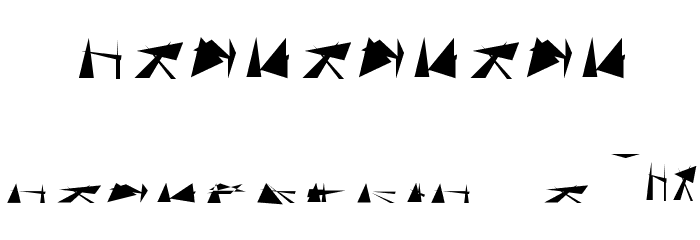
Tholian Regular Font
This font features a highly abstract and angular design, characterized by sharp, jagged edges and a fragmented appearance. Each character is composed of geometric shapes that create a sense of movement and dynamism. The style is reminiscent of futuristic or alien aesthetics, making it stand out with its unconventional and artistic flair. The font's unique structure challenges readability but offers a visually striking impact, suitable for creative and experimental projects.
An abstract, angular font with a futuristic, artistic design.
- Proposed Projects: Ideal for sci-fi themed posters, album covers, video game graphics, and experimental art projects.
- Overall Style: Futuristic, Artistic
- Use Case: Logos, Posters, Artistic Displays